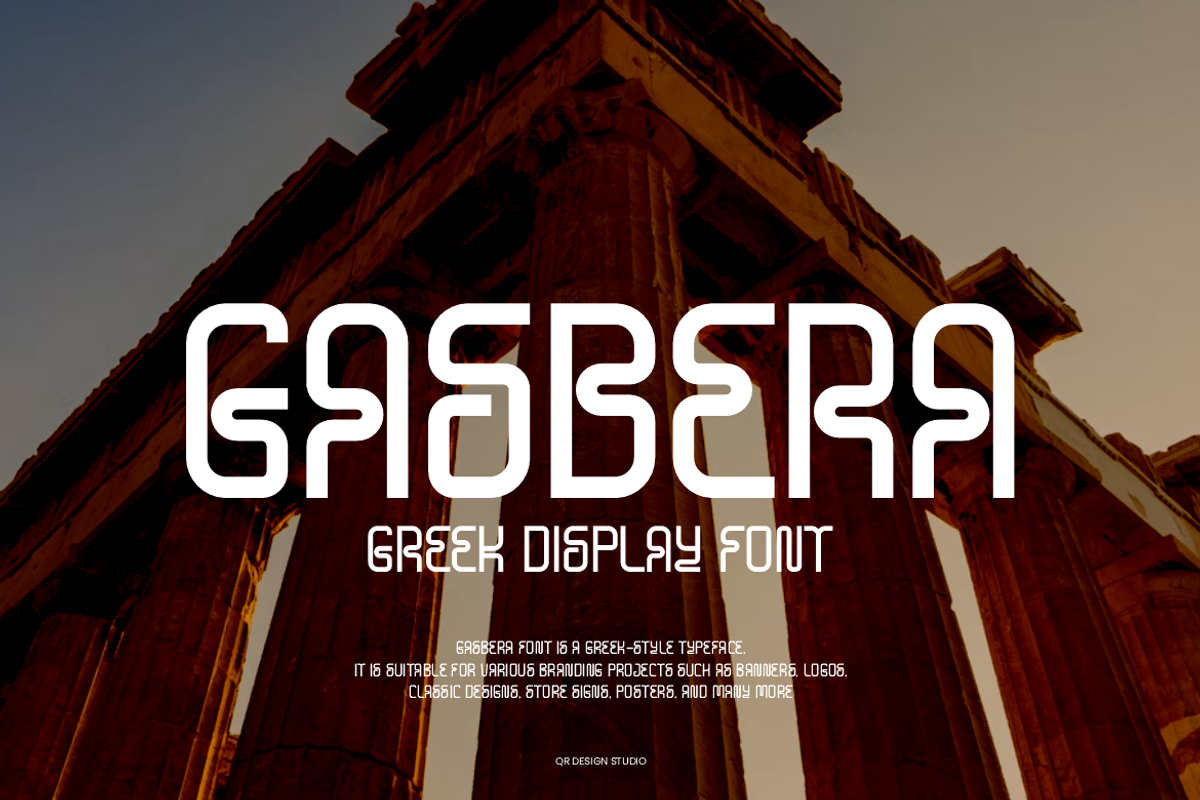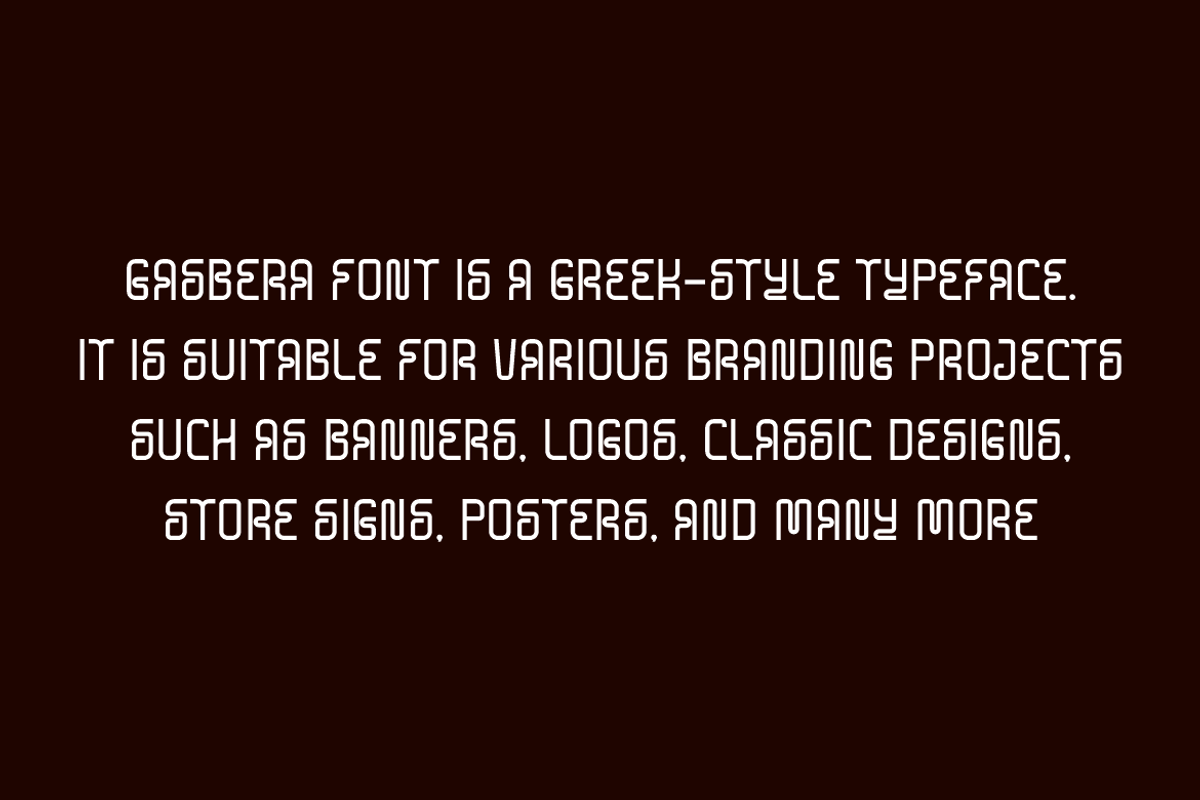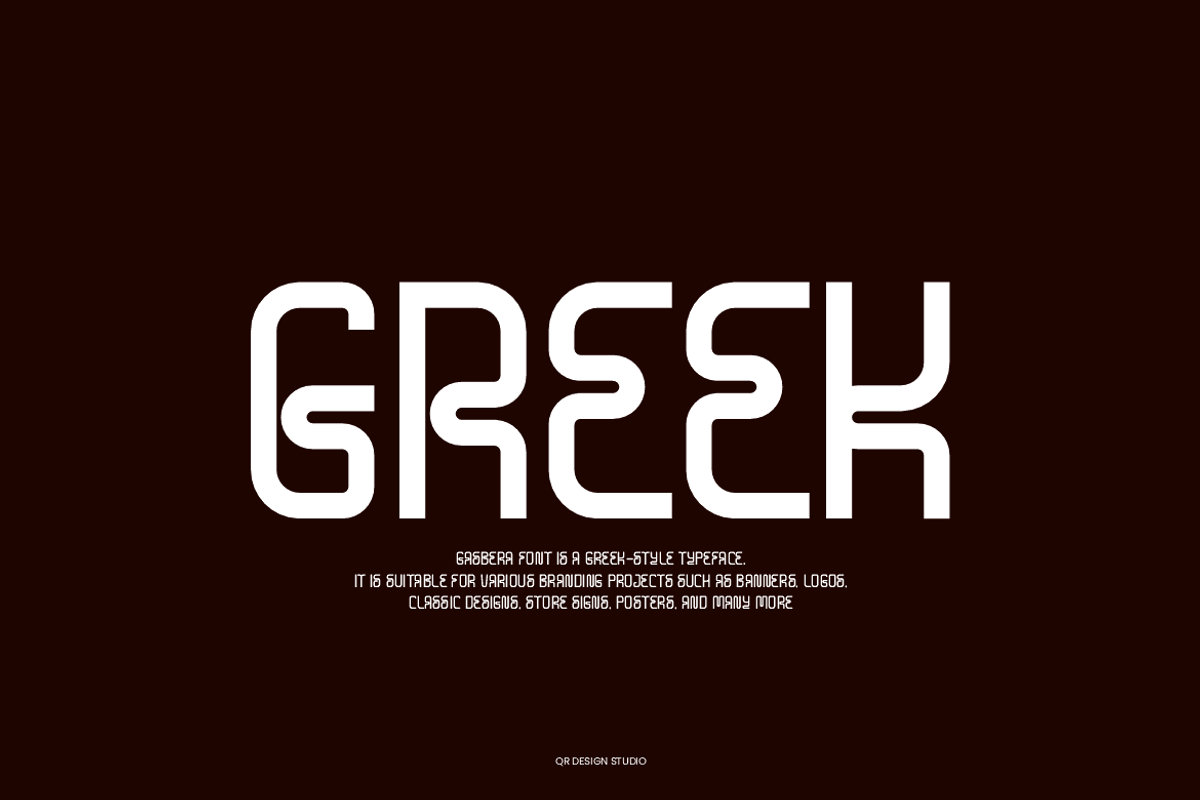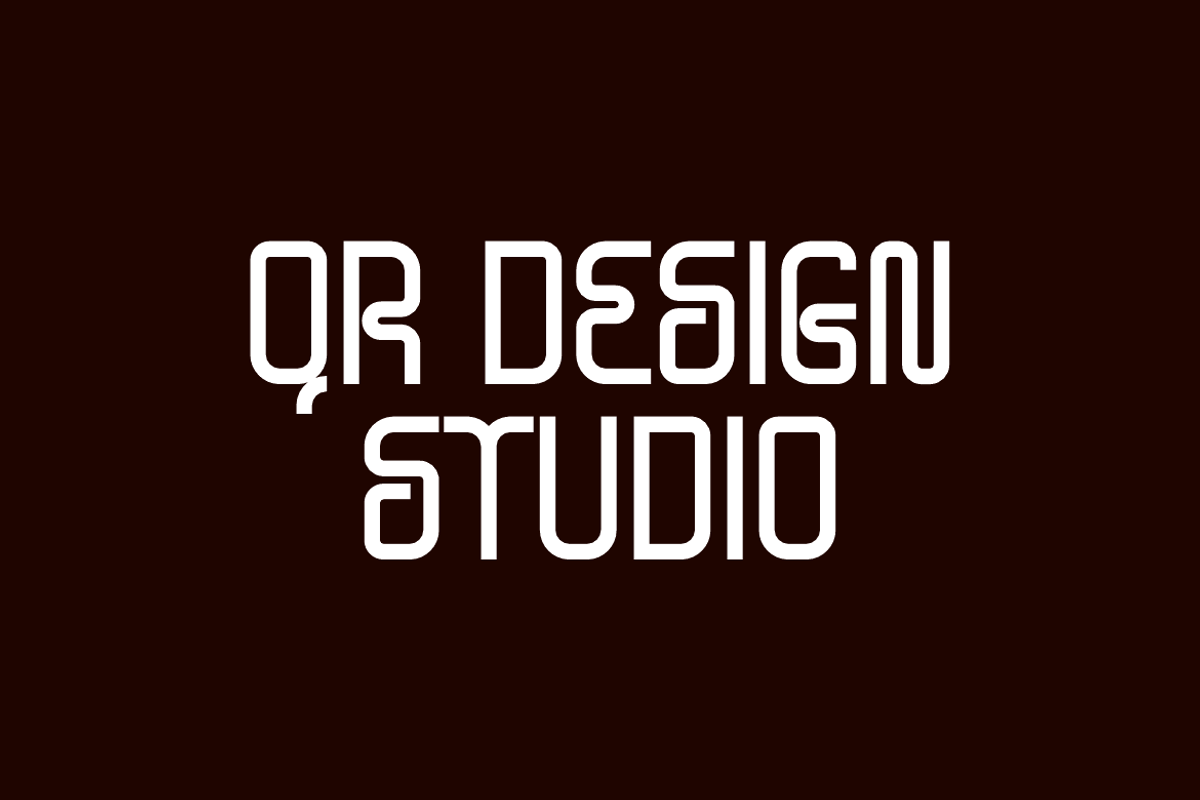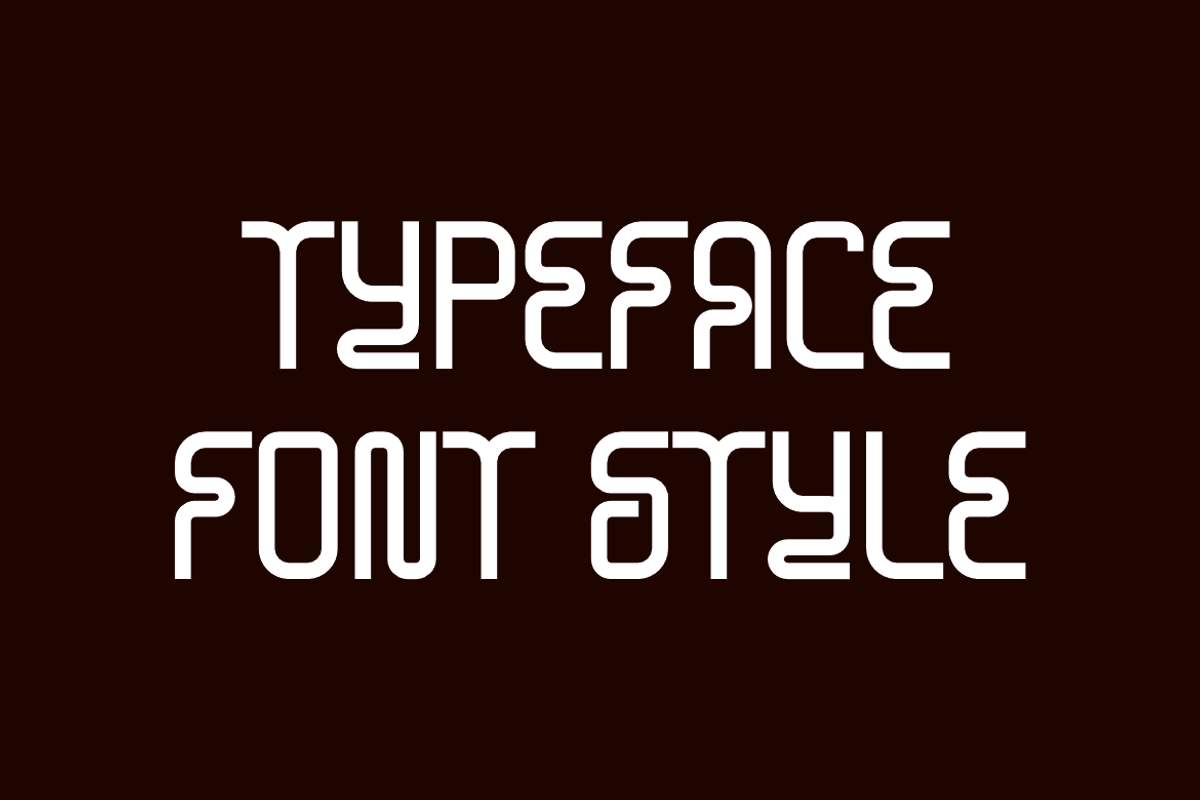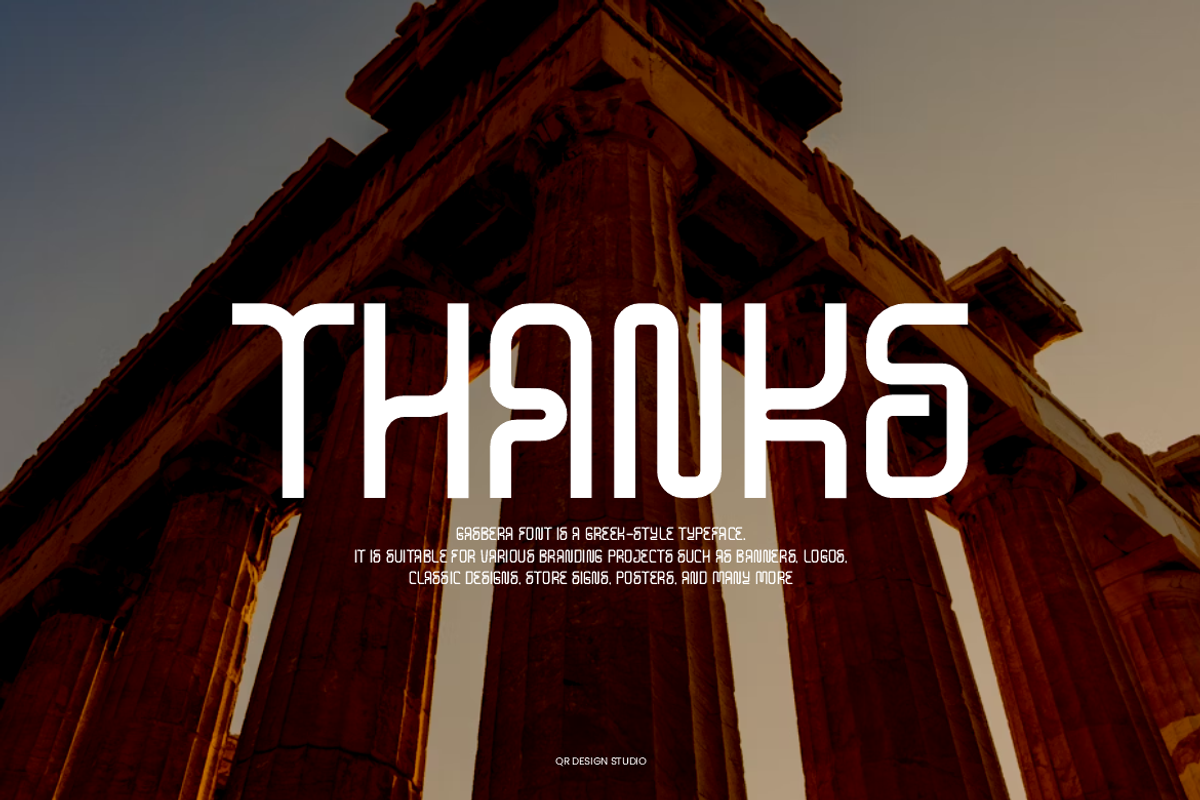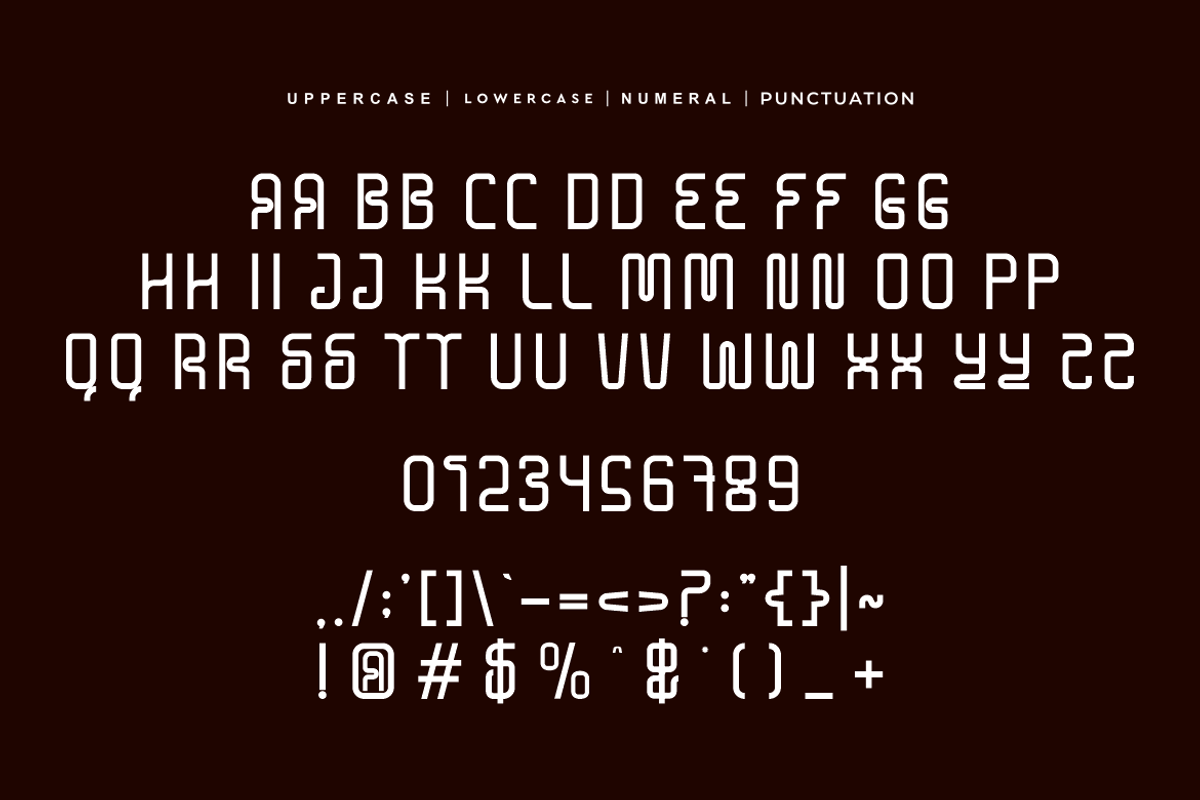
Gasbera - Greek Typeface Font
Gasbera Font is a greek and authentic display typeface. It’s perfect for various branding projects such as logos, classic designs, and more. This font stands out beautifully in a wide range of contexts.